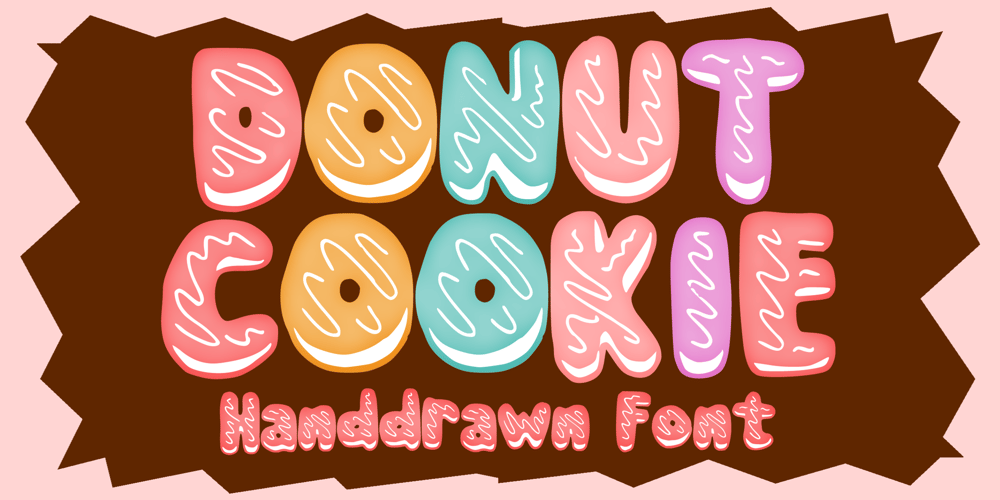
Donut Cookie Font Family was designed by Gabriel Valentinus and published by Mvmet. Donut Cookie contains 1 styles and family package options. Donut Cookie is a very playful donut-themed display font. You can use it for anything ranging from t-shirts, kids’ book designs, greeting cards, stickers, and posters, blog writing, social media content, merchandises, or anything that needs a casual touch. Try it to create lovely designs and feel the good vibes with it!